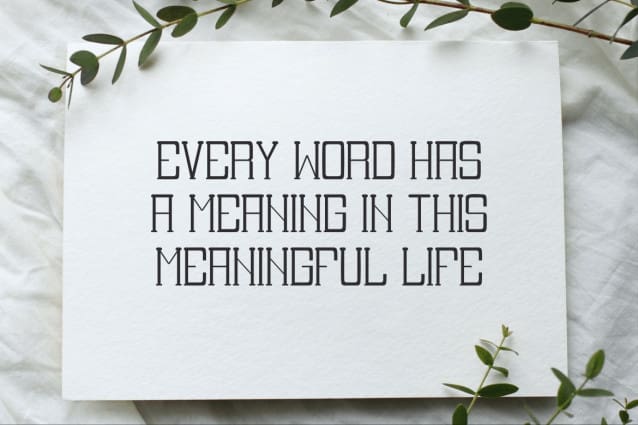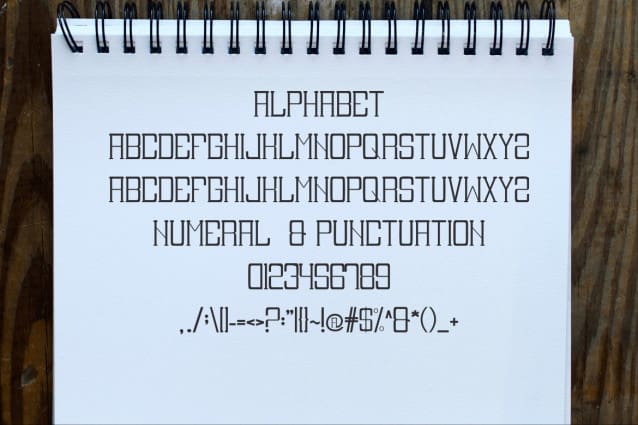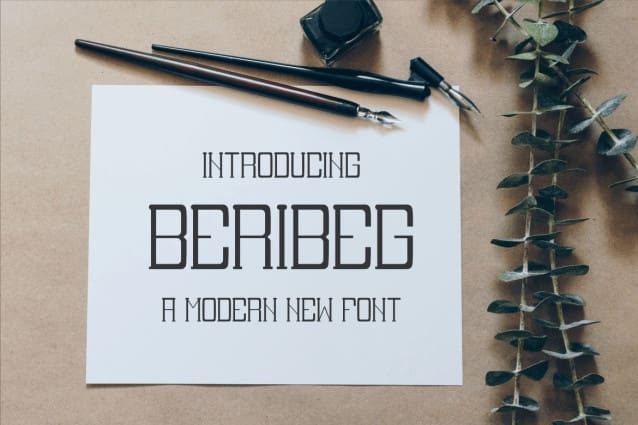
Beribeg Font
Beribeg Font is a modern and simple font ideal for displaying titles, logos, branding, magazines, product packaging and invitations. Beribeg’s clean lines and gentle curves give any project an extra touch of class.